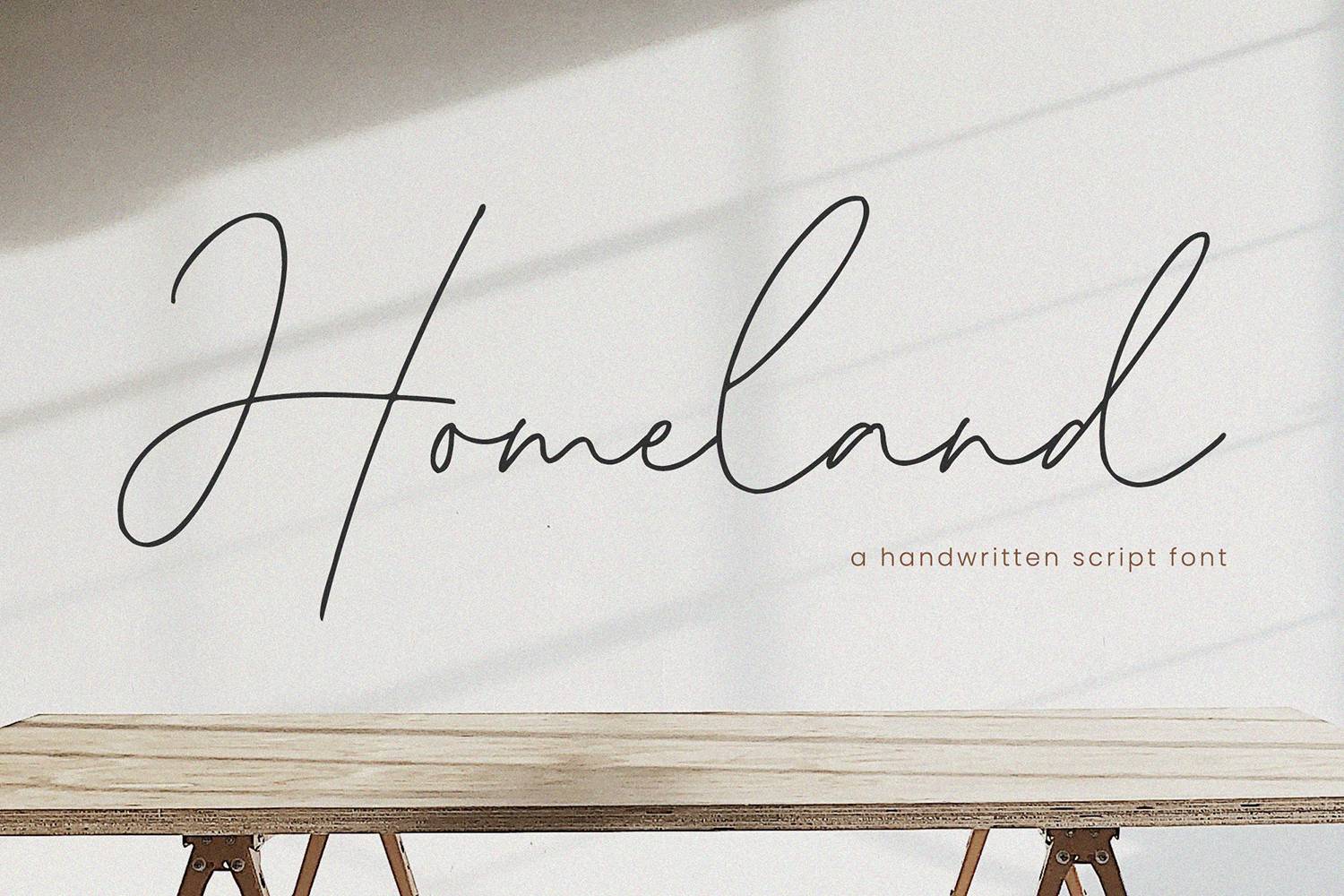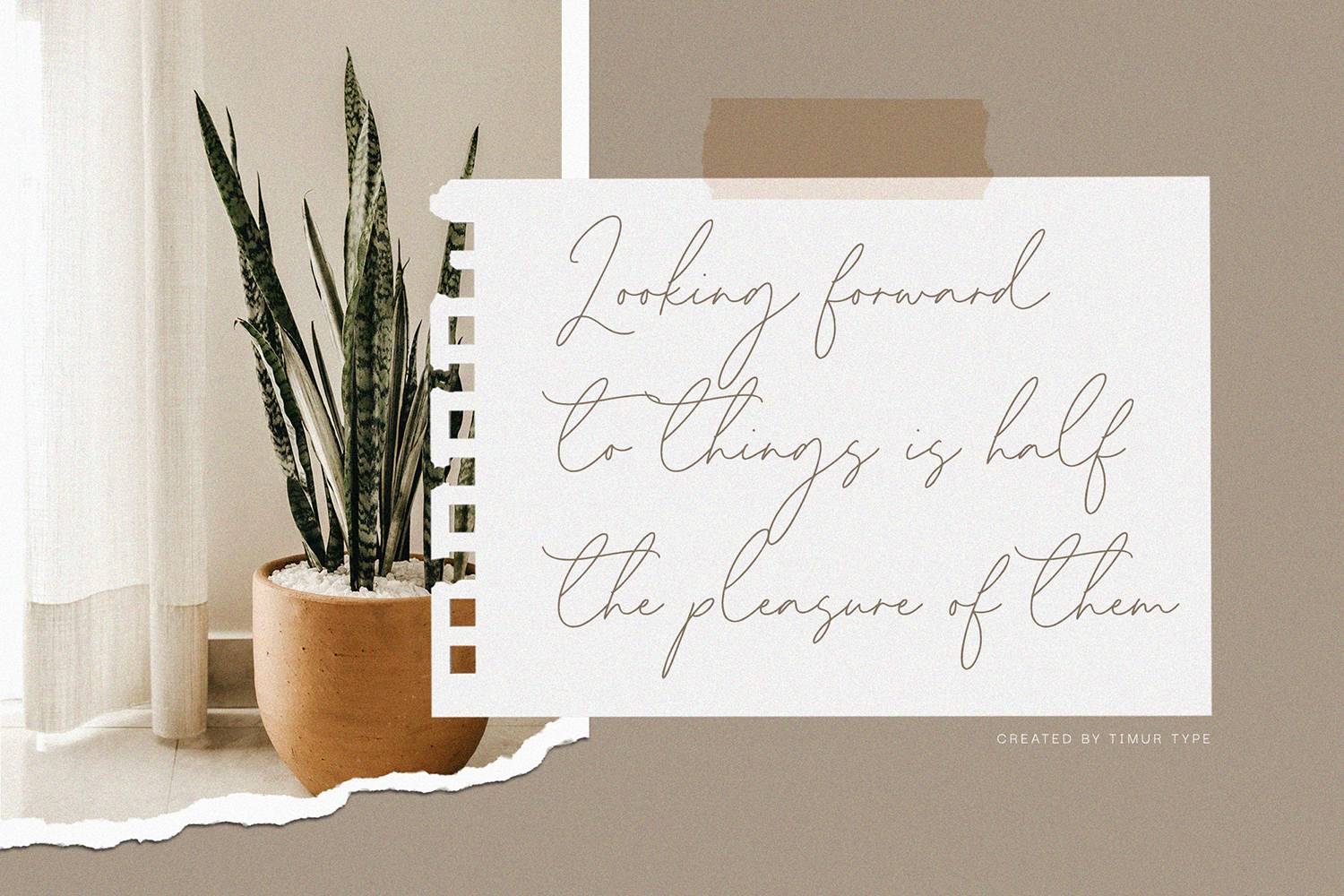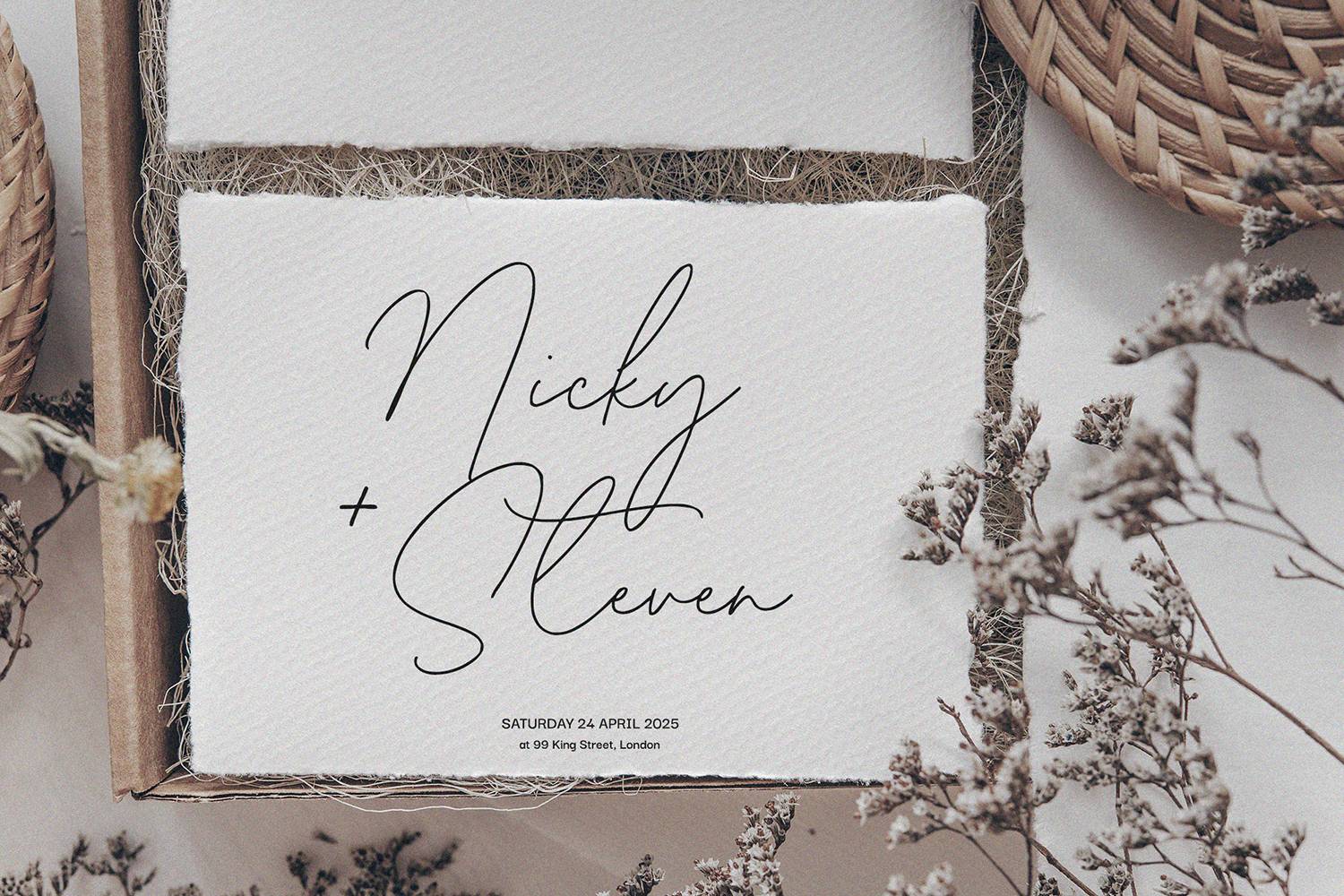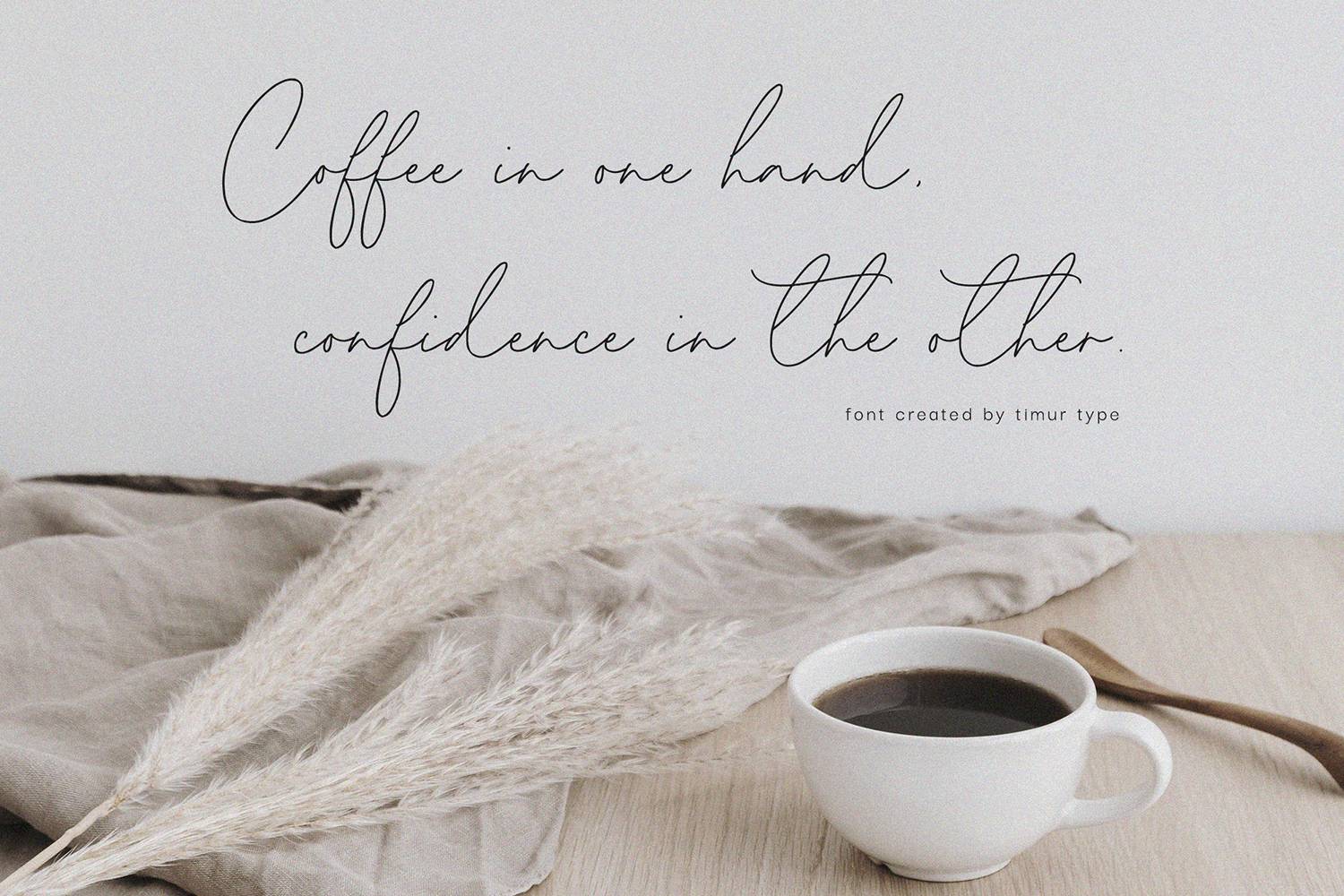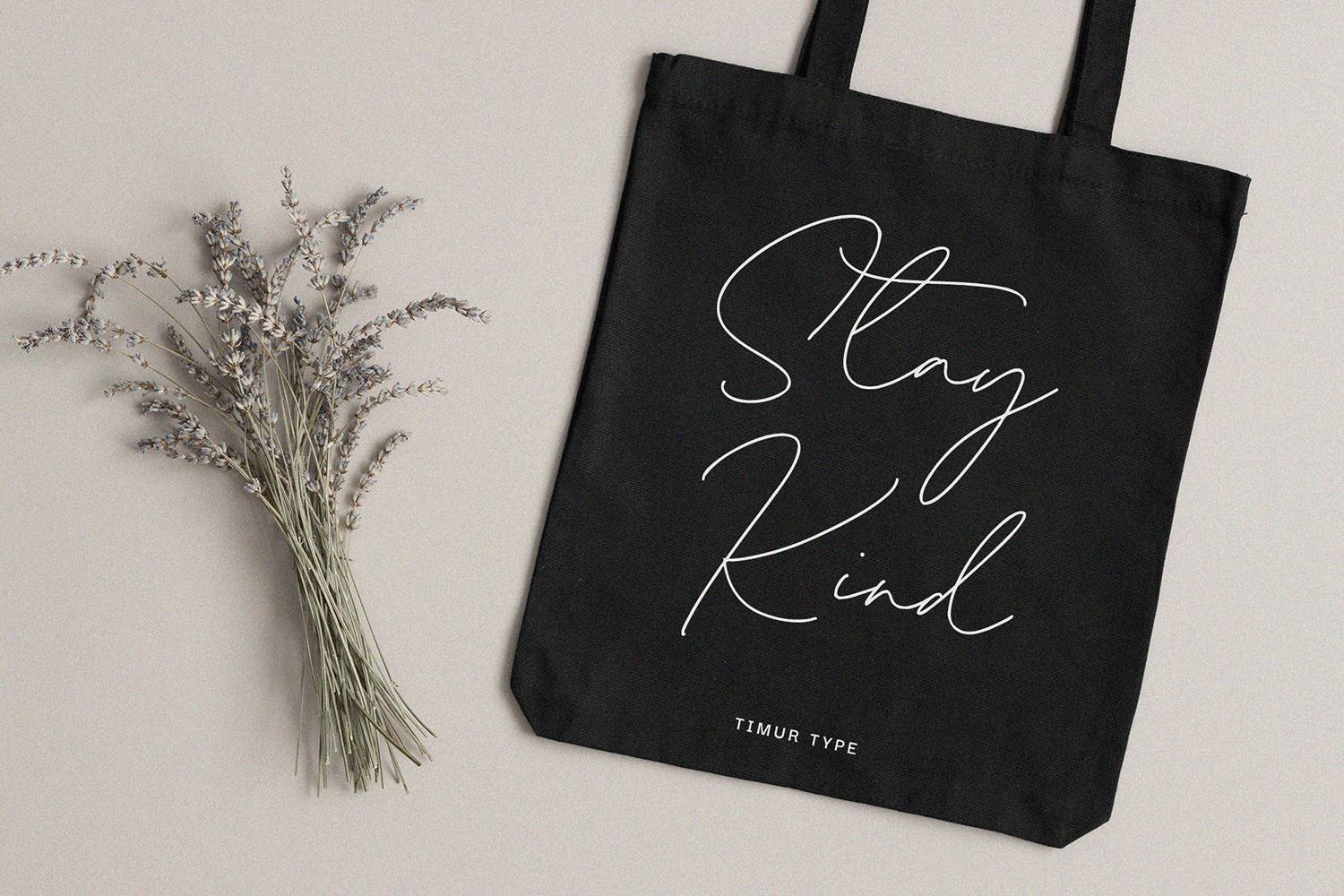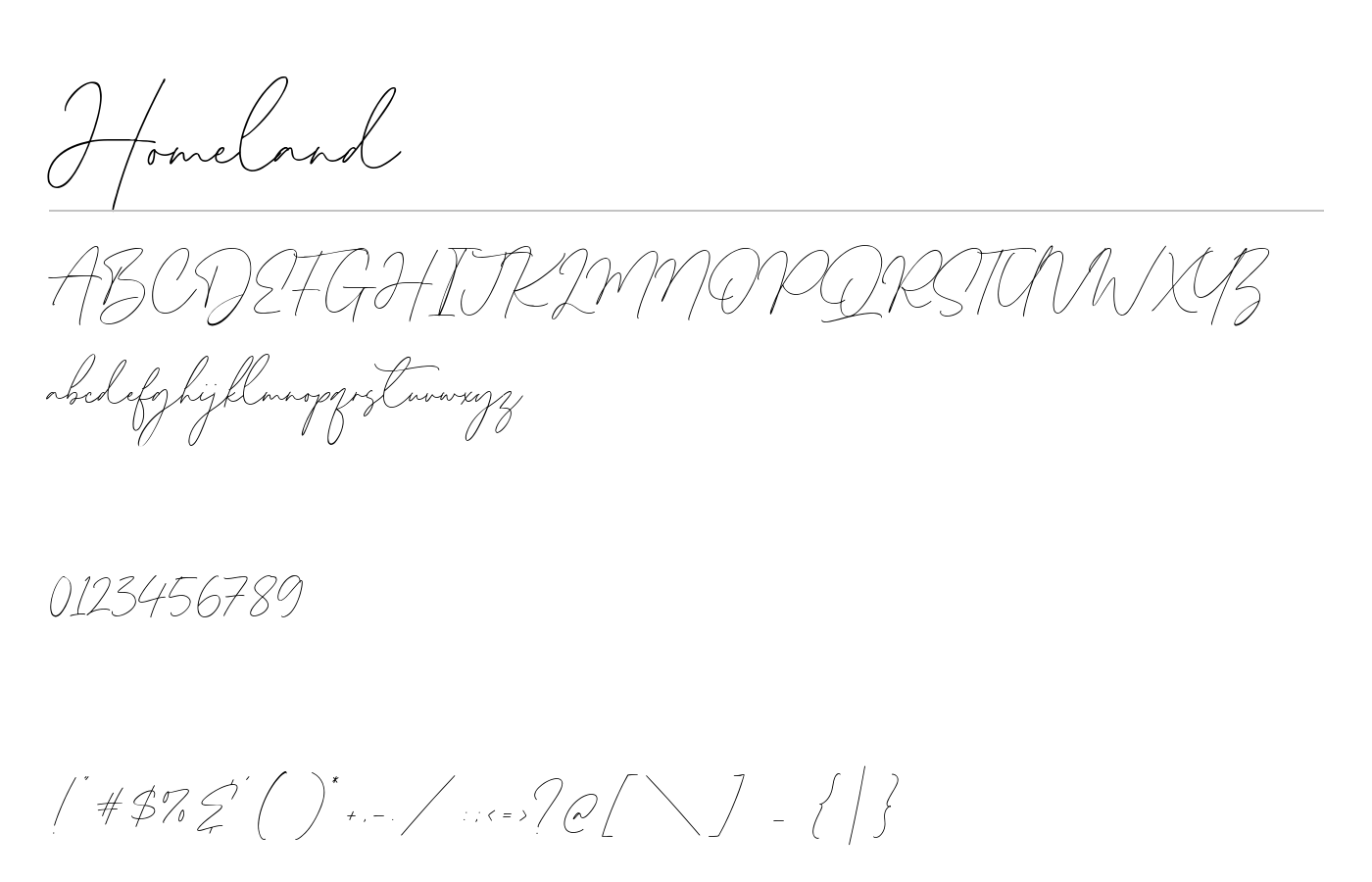
Homeland is a delicate, elegant script font characterized by its thin, flowing lines and graceful letterforms that evoke a handcrafted, personal touch. Its light weight and airy design make it perfect for sophisticated branding, wedding invitations, and feminine editorial projects where a refined, stylish presence is desired. This font works best in display uses, adding a soft, artistic feel to logos and headlines.
Homeland Font
About Homeland Font
| Font family | Homeland Font |
| Designer | Timurtype Studio |